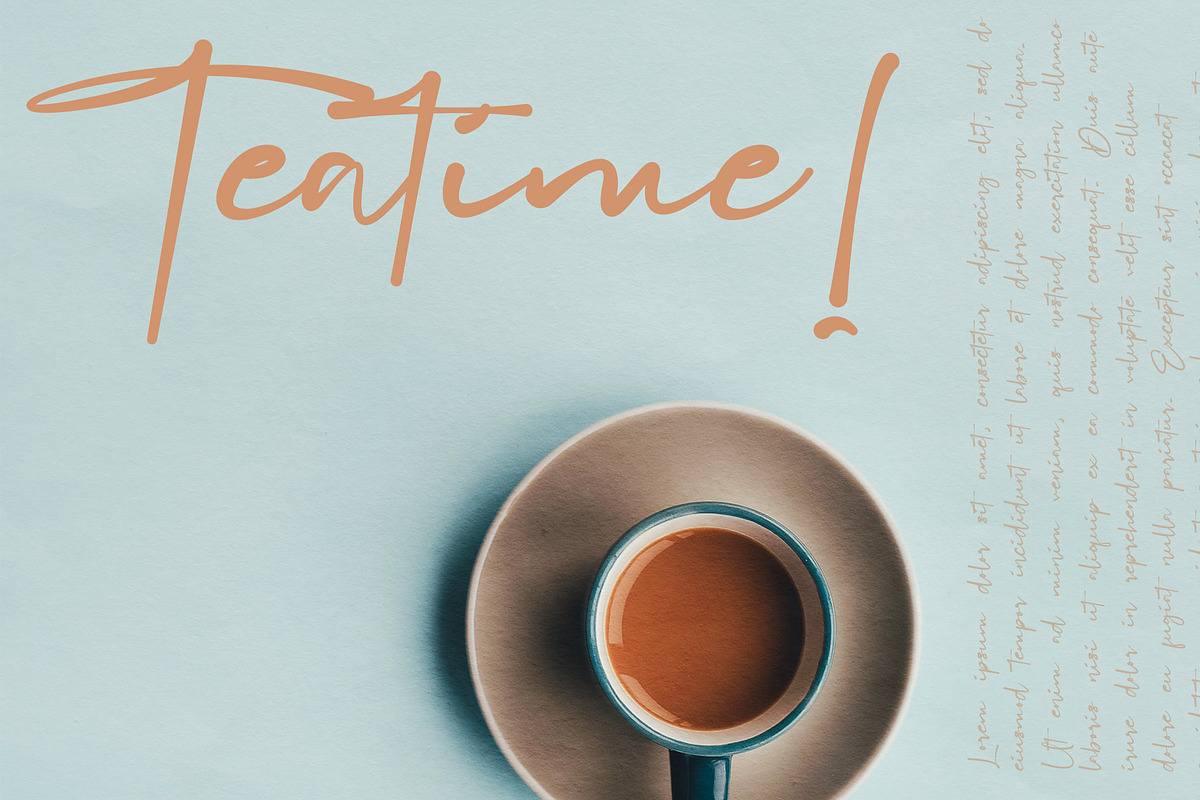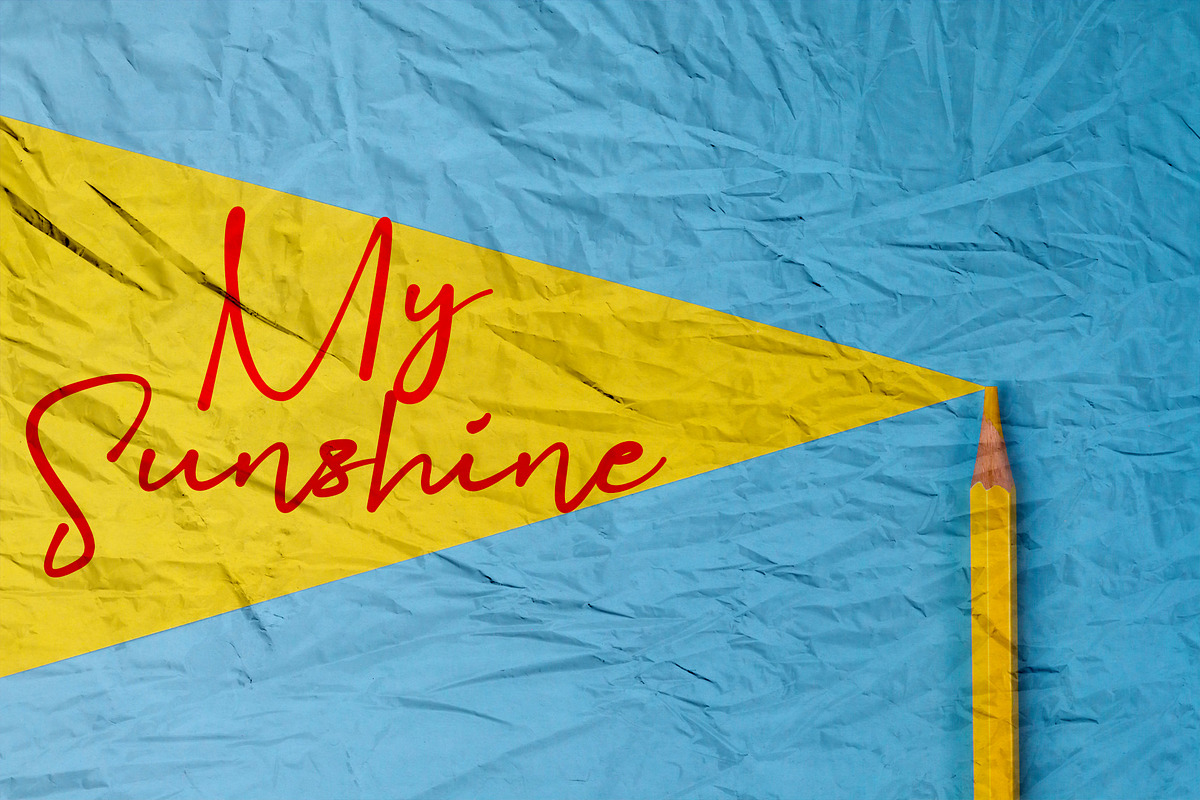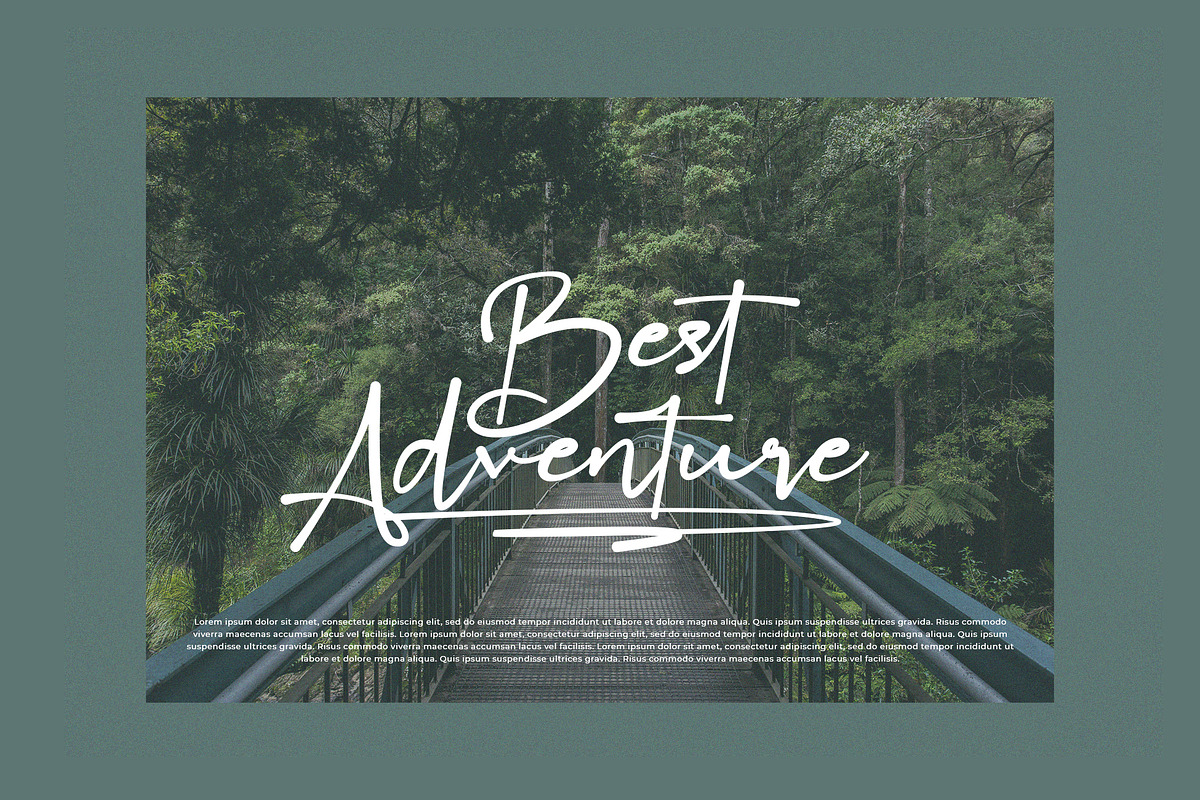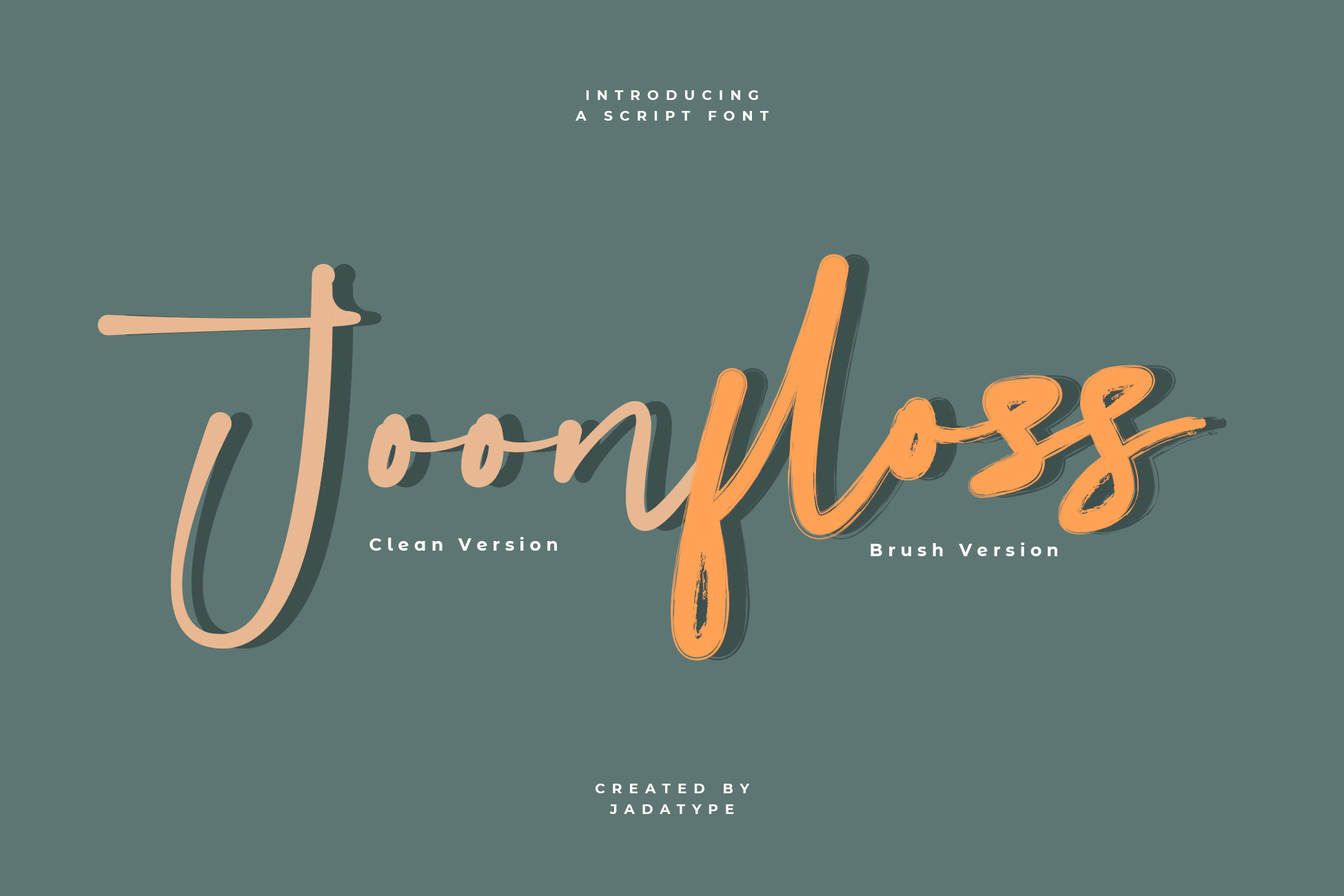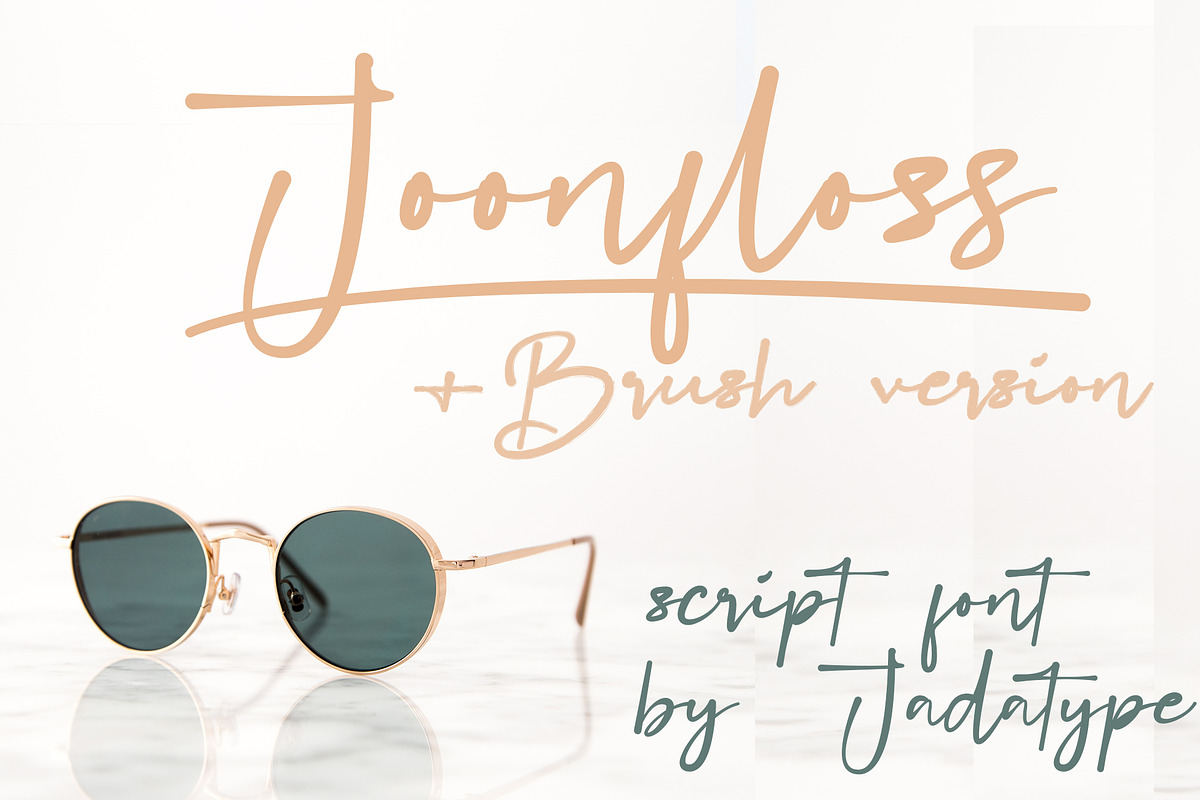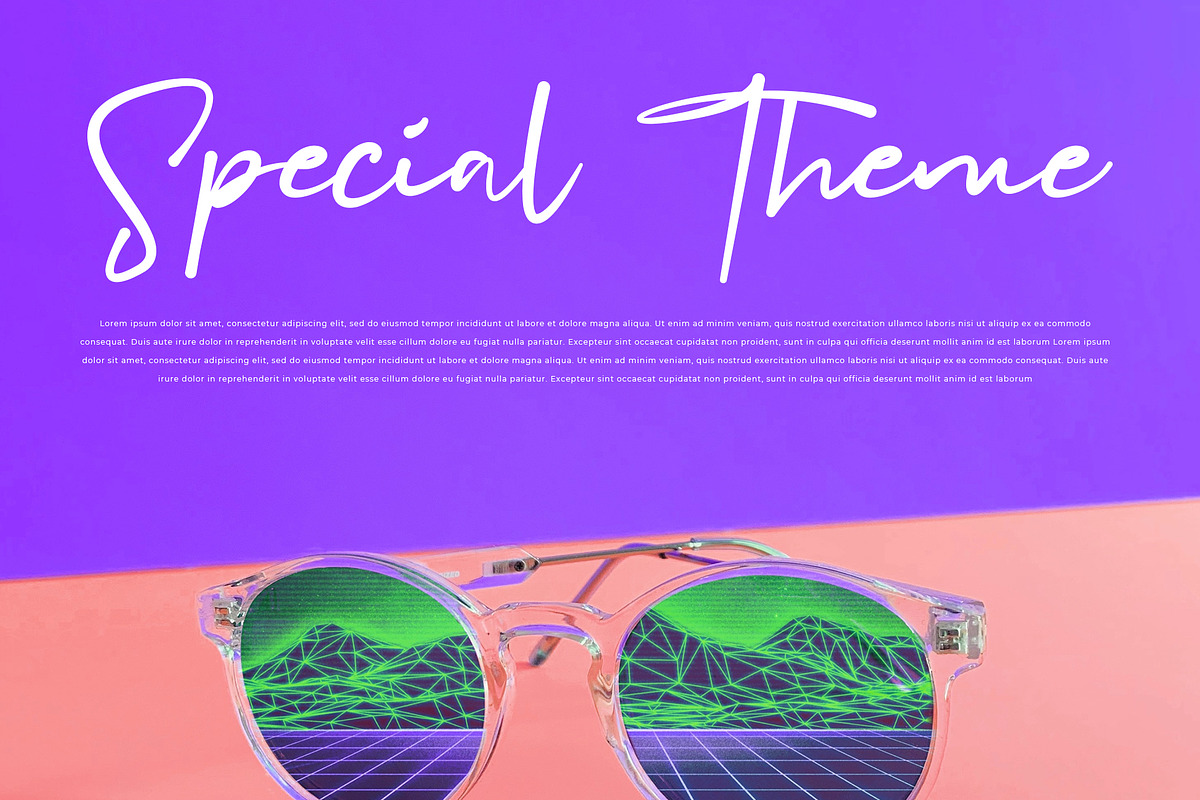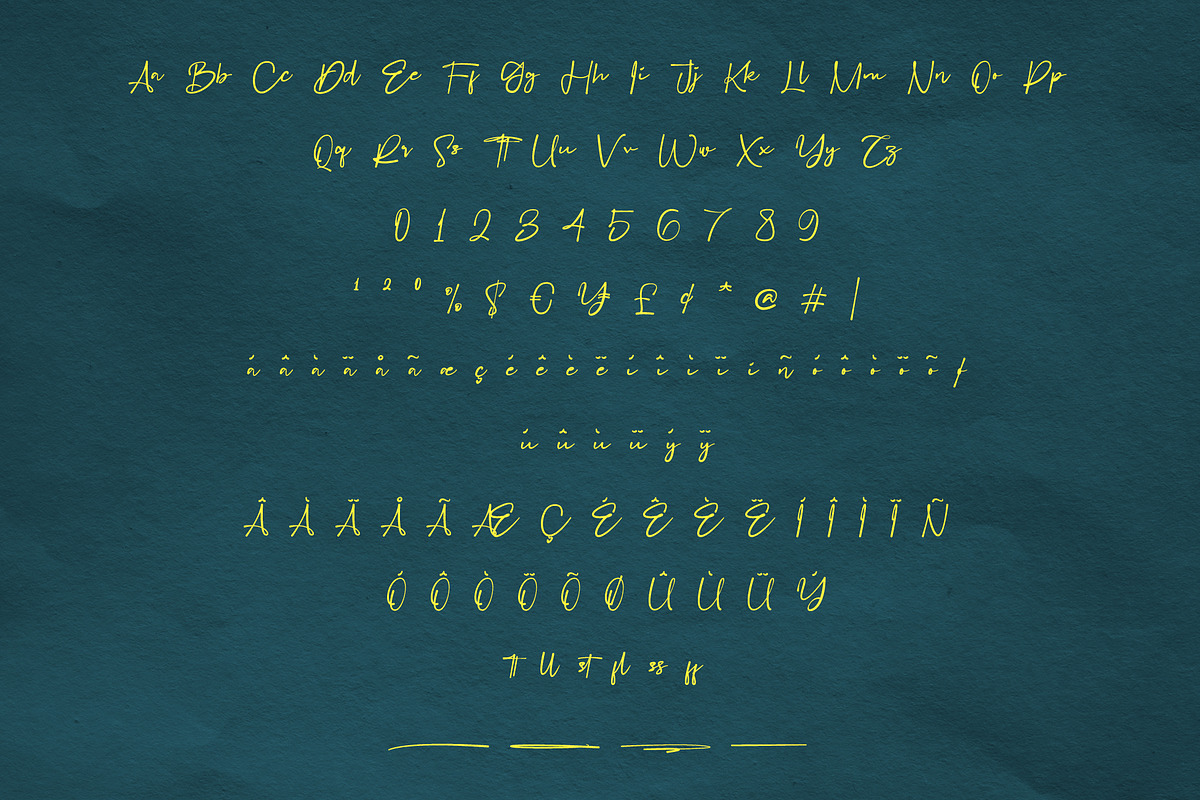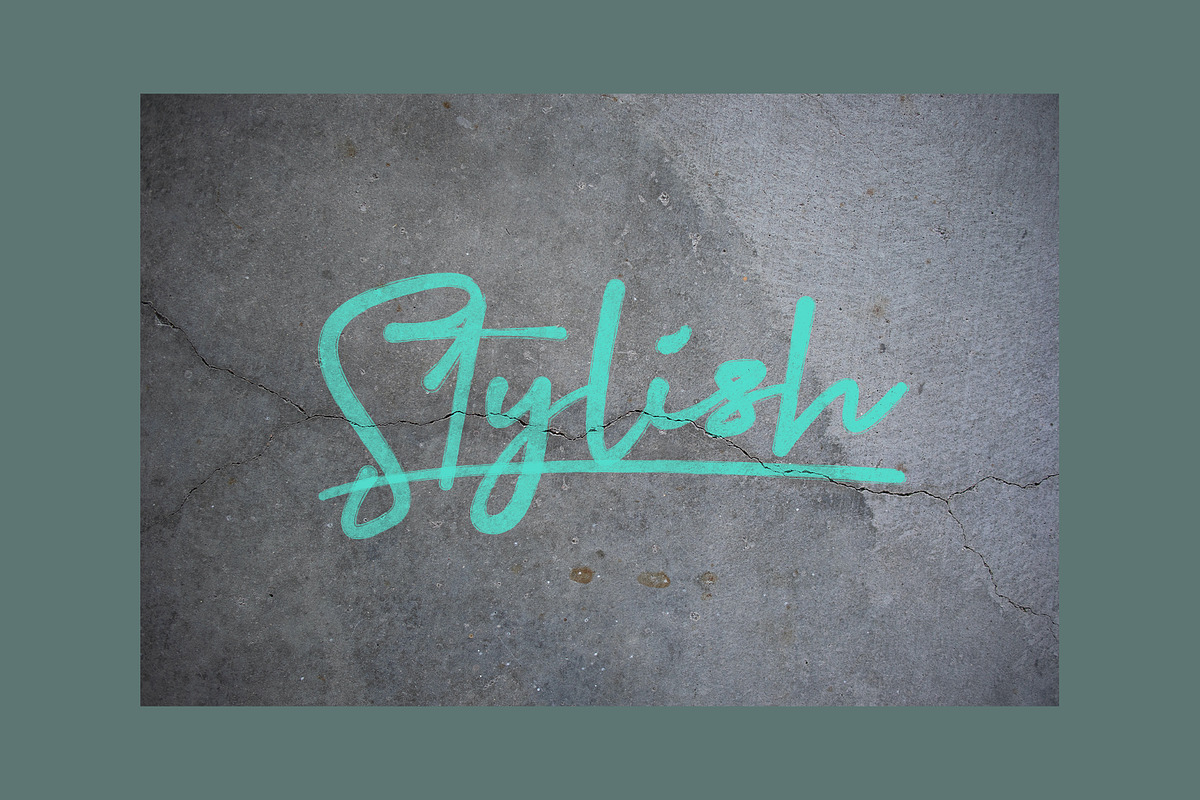
Joonfloss Font | Brush Script
Joonfloss is a brush script font with a catchy's vibe. suitable for social media, vacation themes, music posters, advertisements, and so on. contains standard English letters, numbers, punctuation, and several accents that support multilingualism.
- Clean & Brush version